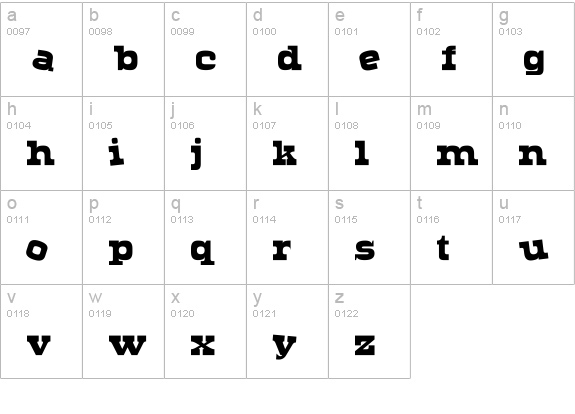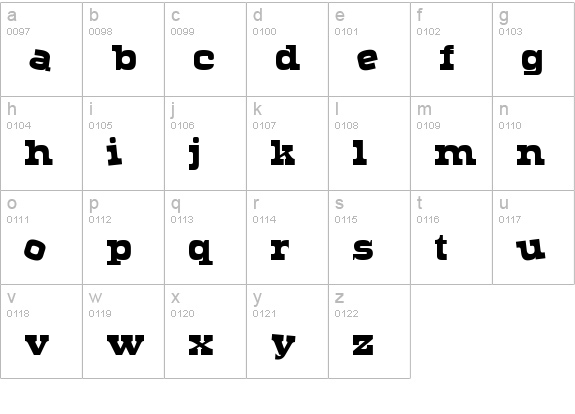
Levity Font Details
Introducing Levity font, a captivating typeface that effortlessly combines elegance with a touch of playfulness. This font is the perfect choice for those seeking a versatile and modern design that exudes a sense of lightness and joy. Levity font is a true masterpiece, created by skilled typographers who understand the importance of balance and harmony in typography. Its carefully crafted letterforms are infused with a unique blend of sophistication and whimsy, making it suitable for a wide range of creative projects. One of the most remarkable features of Levity font is its ability to effortlessly convey a sense of freedom and expression. Each letter seems to dance across the page, giving your words a sense of movement and vitality. Whether used for headlines, logos, invitations, or any other design project, this font will undoubtedly leave a lasting impression. And the best part? Levity font is available for free download exclusively at FontsMarket.com. Now you can add this exceptional typeface to your collection without breaking the bank. So why wait? Go ahead and explore the countless possibilities that Levity font can offer to elevate your designs to new heights. Download Levity font today and let your creativity soar. Unleash the power of this remarkable typeface and see your ideas come to life with a touch of levity.